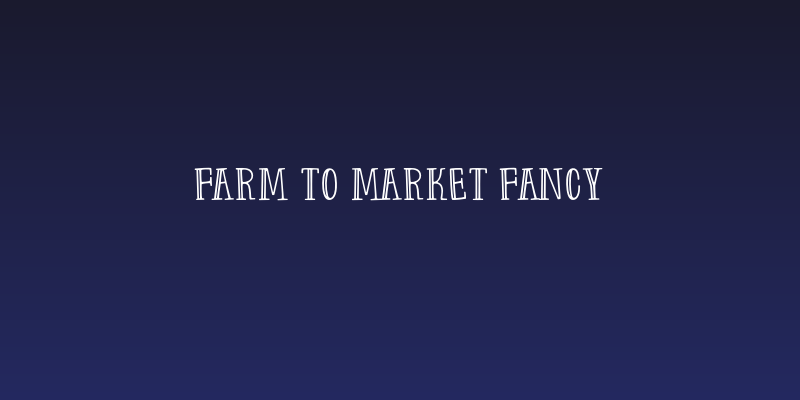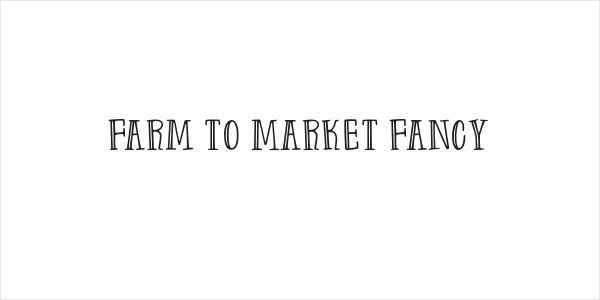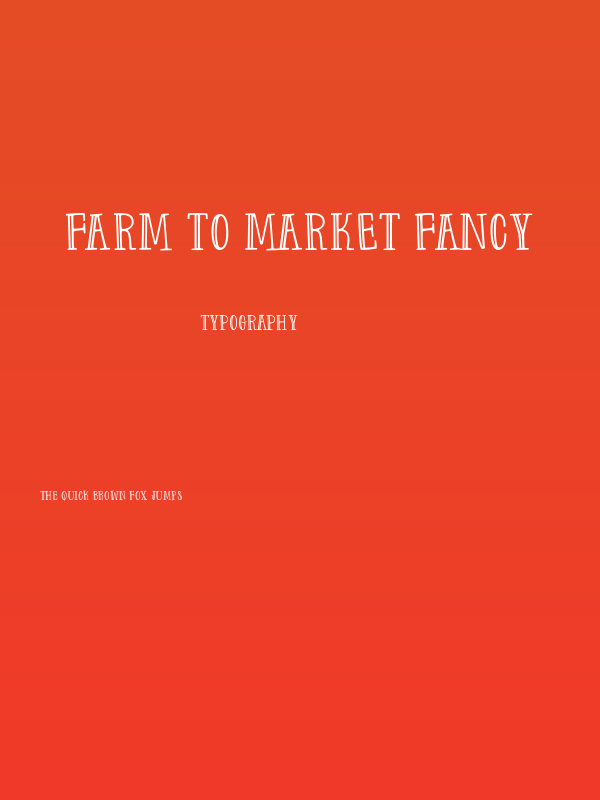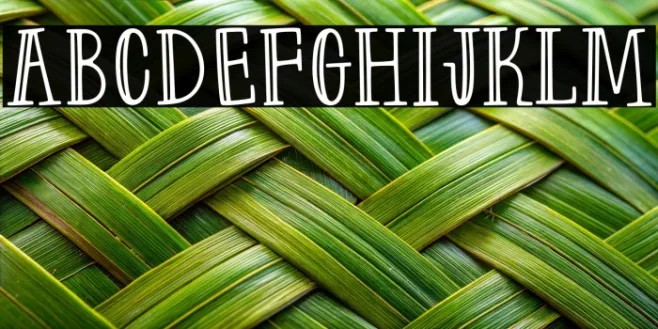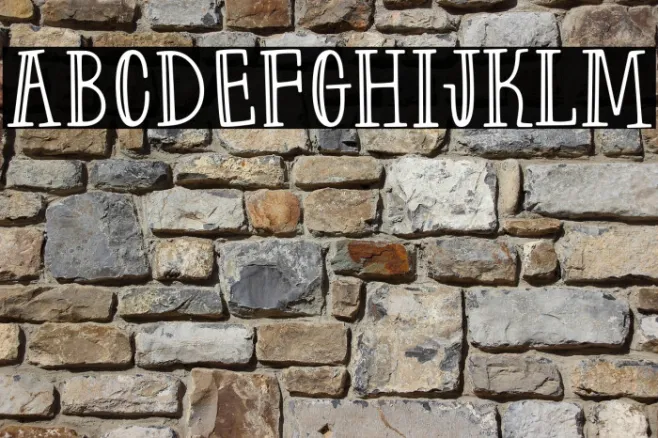
Farm to Market Fancy Font
Farm to Market Fancy Description
This font features a playful and whimsical design with a hand-drawn aesthetic. The characters are tall and slightly narrow, with a unique flair that gives each letter a distinct personality. The strokes are consistent in width, providing a uniform appearance, while the slight slant and irregularities add a touch of charm. The font includes both uppercase and lowercase letters, numerals, and a variety of special characters, making it versatile for different uses. Its decorative style is perfect for projects that require a fun and engaging look.
| Overall Style | Whimsical, Playful |
| Proposed Projects | Ideal for children's books, playful branding, greeting cards, and creative posters. |